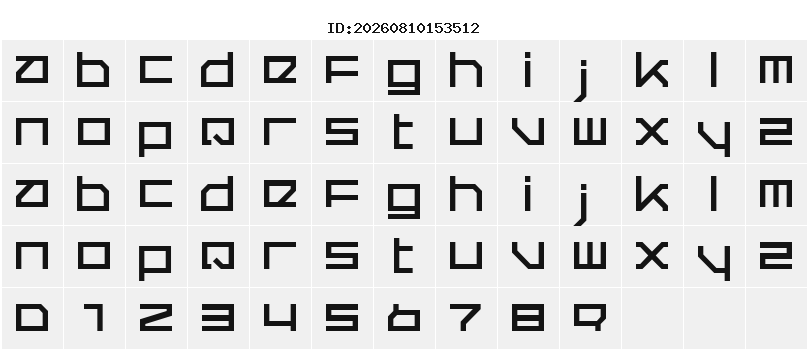
Quer Preview
• Font Name: Quer
• Font ID: Altsys Metamorphosis:Quer Regular
• Full Font Name: Quer Regular
• Version: Altsys Metamorphosis:18.02.2003
• PostScript Name: Quer
• Character Count: 106
About Quer.ttf
Quer.ttf is a modern, elegant sans-serif font designed for ultimate readability and visual harmony. Perfect for branding, headlines, web design, and print materials.